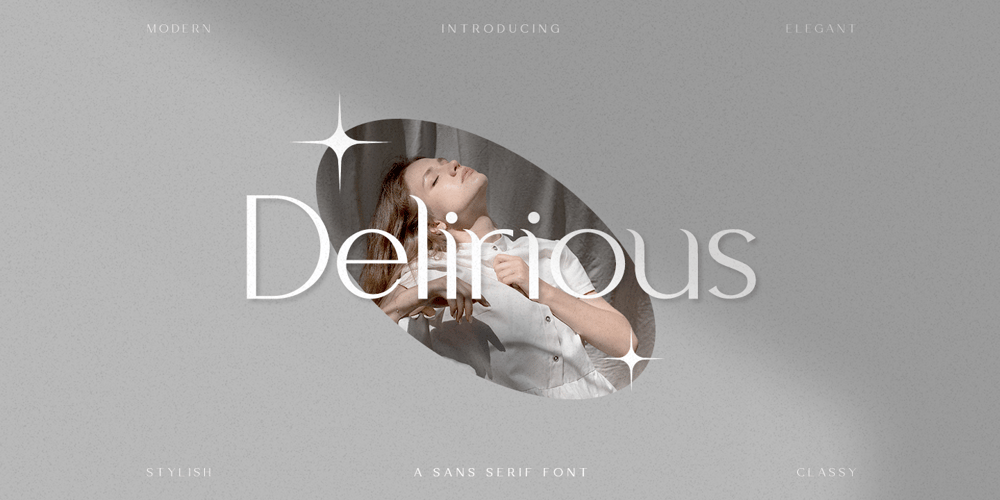
Delirious Font Family was designed by Hayinah and published by Rockboys Studio. Delirious contains 1 styles and family package options. Delirious is a minimal and neat sans serif font. It can easily be matched to various projects, so add it to your most creative ideas and notice how it makes them stand out!